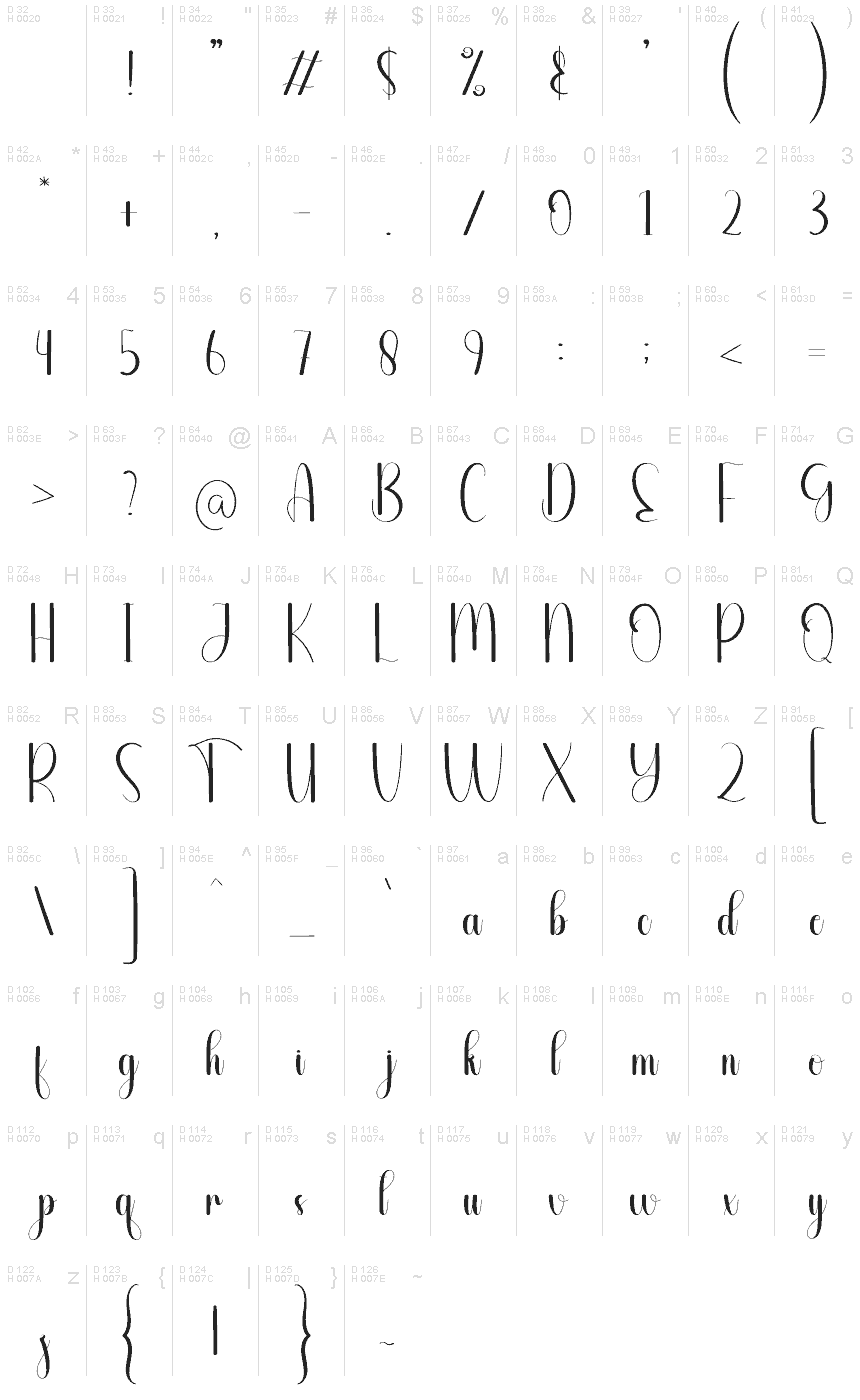
Blancing
Blancing font by Andi Moz is a sophisticated flowy handwritten font with a calligraphic influence. The free condensed curved font is elegant, charming, and easy on the eyes. With a high contrast between thin and thick strokes, the flowing Blancing maintains its legibility while standing out from the rest.
Use this resource to create artistic logos or product labels for dresses, cosmetics, jewelry, shoes, perfumes or skincare products. Titles for posters or book cover designs are also notable options for Blancing’s typographic decoration.